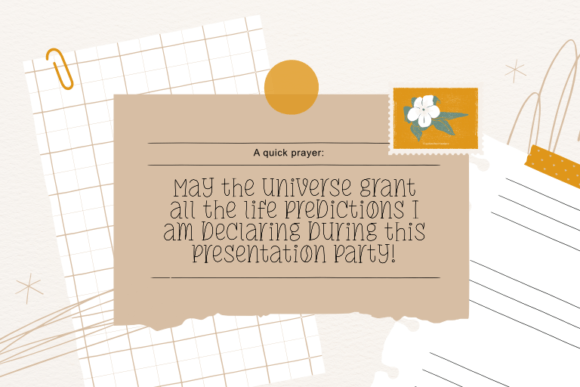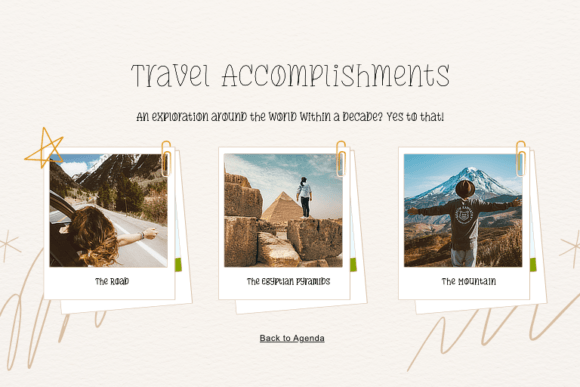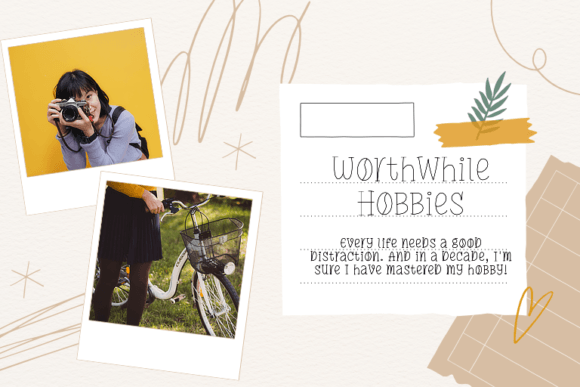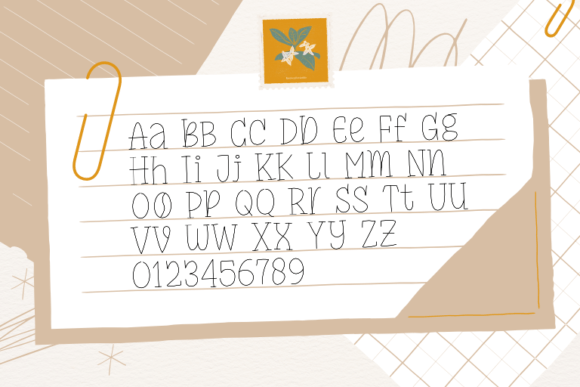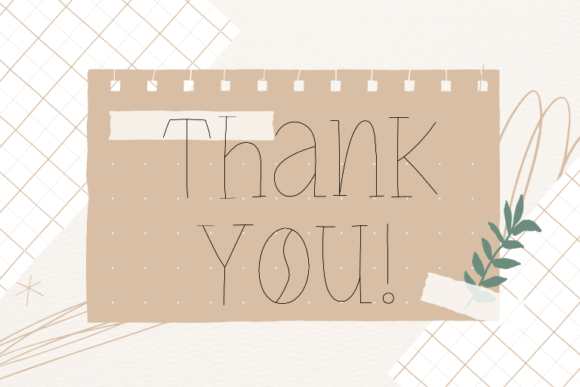
Falsely Secure Font: The Sweet and Friendly Typeface for Your Design Needs
Are you tired of using the same old fonts in your designs? Look no further than Falsely Secure, a sweet and friendly single-line font that’s perfect for adding a personal touch to your projects. With its natural and unique style, Falsely Secure is incredibly versatile and can be used in a wide range of designs, from creative crafts to digital art. In this article, we’ll take a closer look at the Falsely Secure font and explore its features, benefits, and uses.
A Unique and Natural Style
Falsely Secure is a single-line font that boasts a distinctive and charming style. Its natural and effortless look makes it perfect for designs that require a friendly and approachable feel. The font’s unique style is characterized by its clean lines, simple shapes, and subtle imperfections, which give it a human touch that’s hard to find in more traditional fonts.
The beauty of Falsely Secure lies in its versatility. This font can be used in a wide range of designs, from creative crafts to digital art, and everything in between. Whether you’re designing a logo, a poster, a greeting card, or a website, Falsely Secure is the perfect choice. Its single-line style makes it easy to use in combination with other fonts, and its friendly feel ensures that your designs will always be approachable and engaging.
Falsely Secure is a font that’s specifically designed with designers and crafters in mind. Its unique style and versatility make it perfect for a wide range of projects, from handmade crafts to digital art. Whether you’re a professional designer or a hobbyist crafter, Falsely Secure is a font that will help you to add a personal touch to your designs and stand out from the crowd.
Key Features of Falsely Secure
- Single-line style: Falsely Secure is a single-line font that’s perfect for designs that require a clean and simple look.
- Natural and unique style: The font’s natural and unique style makes it perfect for designs that require a friendly and approachable feel.
- Versatile: Falsely Secure can be used in a wide range of designs, from creative crafts to digital art.
- Easy to use: The font is easy to use and can be combined with other fonts to create a unique look.
Tips for Using Falsely Secure
Here are a few tips for using Falsely Secure in your designs:
- Use it as a headline font: Falsely Secure is perfect for use as a headline font, where its unique style can really shine.
- Combine it with other fonts: The font’s single-line style makes it easy to use in combination with other fonts, which can add depth and interest to your designs.
- Experiment with different colors: Falsely Secure looks great in a wide range of colors, so don’t be afraid to experiment and find the perfect color for your design.
Falsely Secure is a sweet and friendly single-line font that’s perfect for designers and crafters who want to add a personal touch to their designs. With its natural and unique style, Falsely Secure is incredibly versatile and can be used in a wide range of designs. Whether you’re designing a logo, a poster, or a digital art project, Falsely Secure is the perfect choice. So why not give it a try and see the difference it can make in your designs?
The only limit to what you can create with Falsely Secure is your imagination! So don’t be afraid to get creative and experiment with different designs, colors, and fonts. With Falsely Secure, the possibilities are endless, and you’re sure to create something truly special.